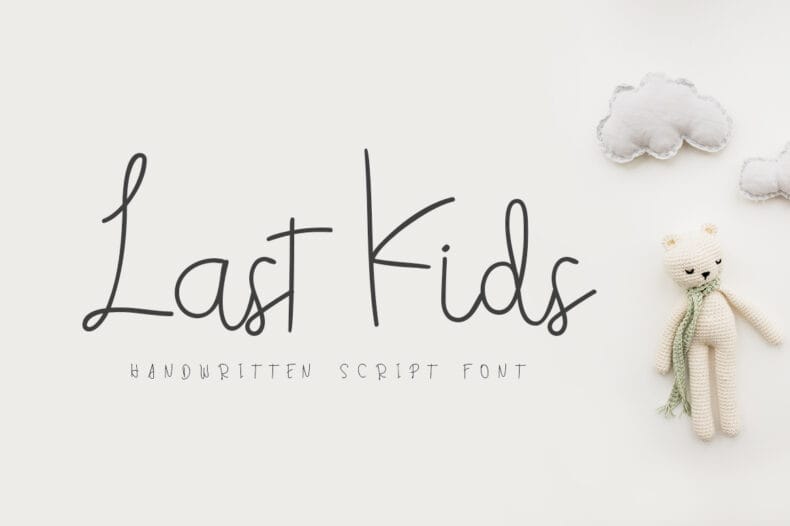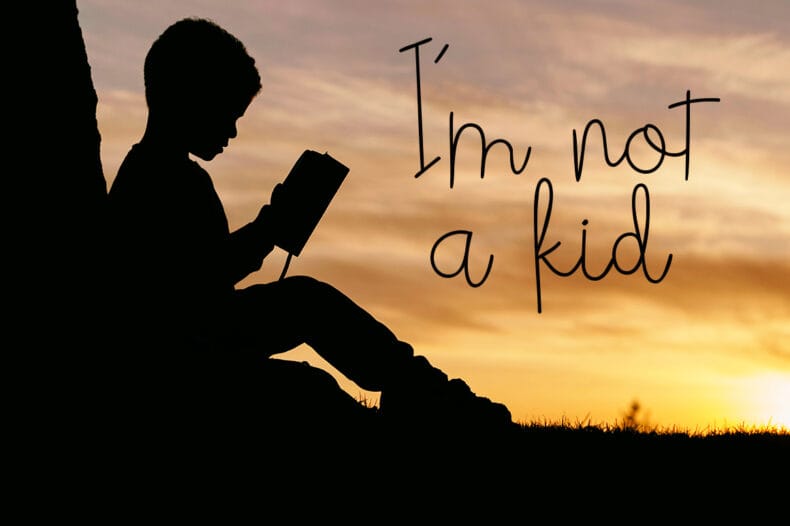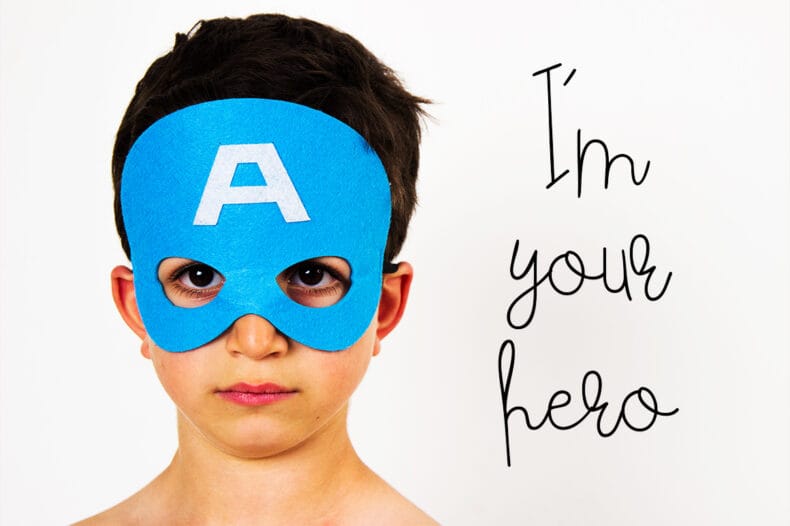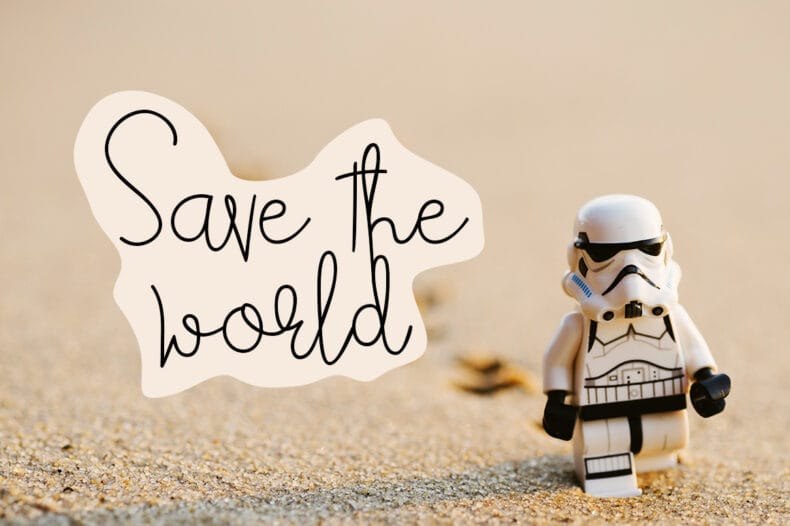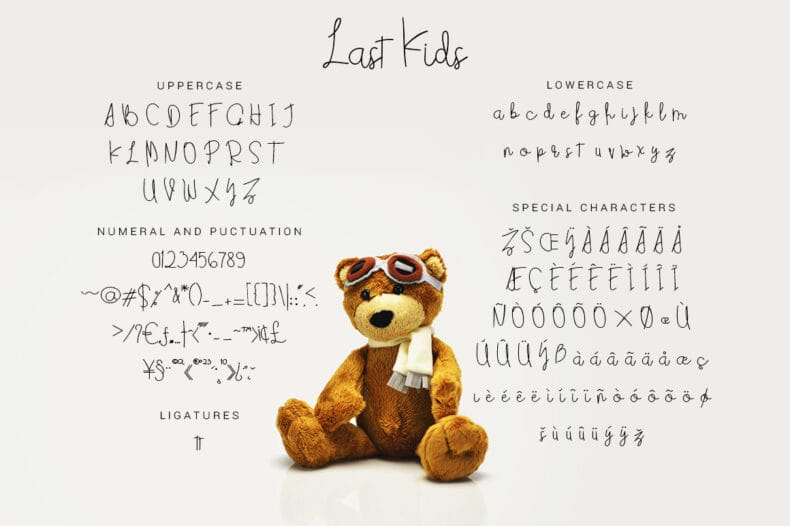
Last Kids Script Font
Last Kids is a casual handwritten script font with thin pen strokes. It offers an informal, youthful voice for short messages and children’s design projects.
Try Last Kids for a personal note, a playful caption, or a heading in an illustrated layout. Its thin-stroke handwriting is a useful option when you want a lighter typographic accent rather than a heavy display title.
The font includes multilingual characters. Check your wording in the preview and pay attention to the final size and contrast so the thin strokes stay clear.